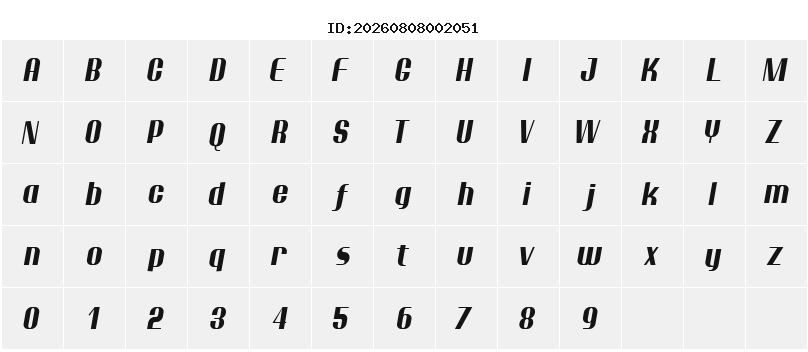
Ptarmigan Condensed Preview
• Font Name: Ptarmigan Condensed
• Font ID: TMF Ptarmigan Condensed Italic
• Full Font Name: Ptarmigan Condensed Italic
• PostScript Name: PtarmiganCondensedItalic
About Ptarmigan Condensed.ttf
Ptarmigan Condensed.ttf is a modern, elegant sans-serif font designed for ultimate readability and visual harmony. Perfect for branding, headlines, web design, and print materials.